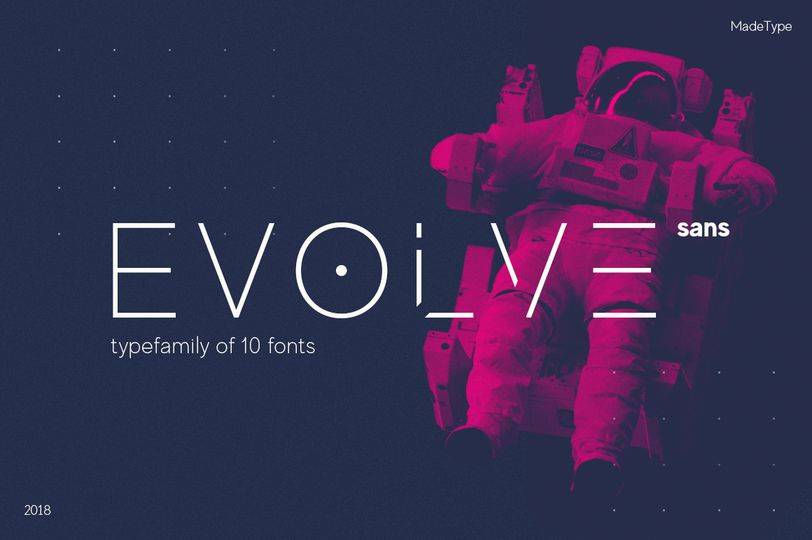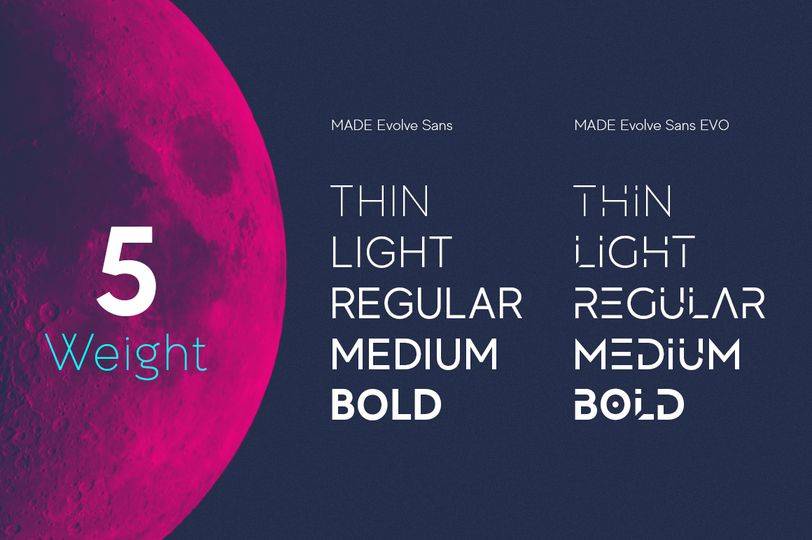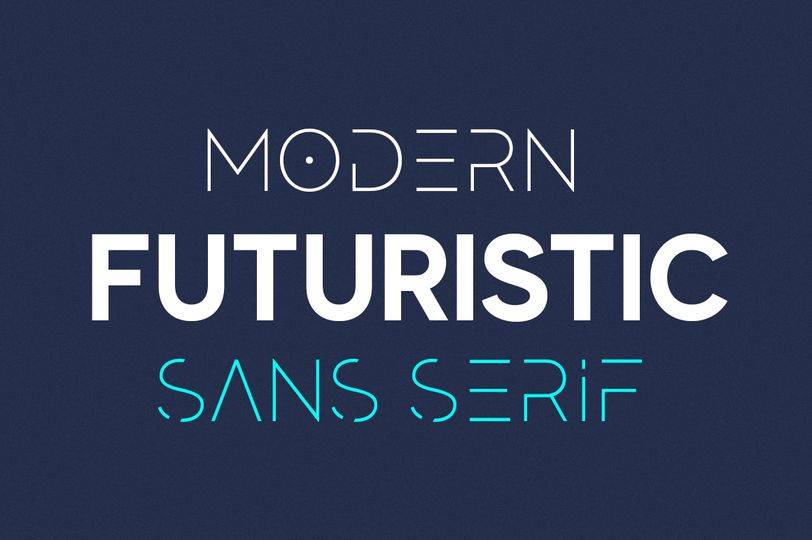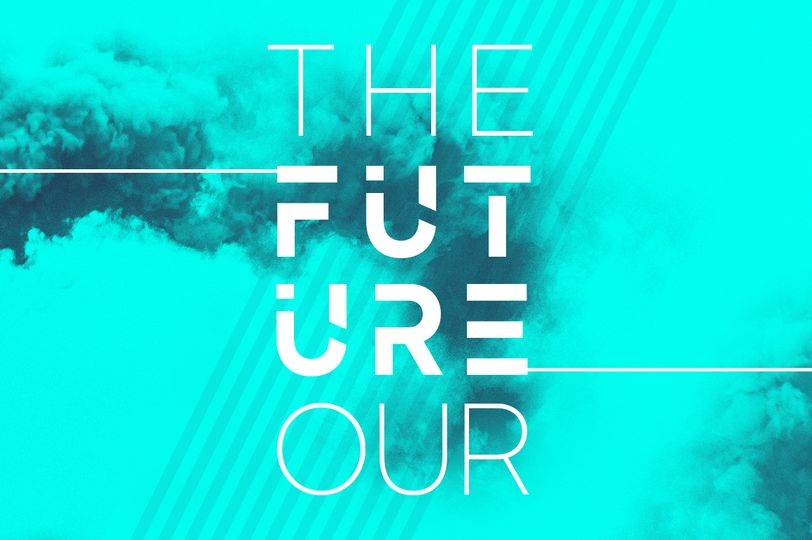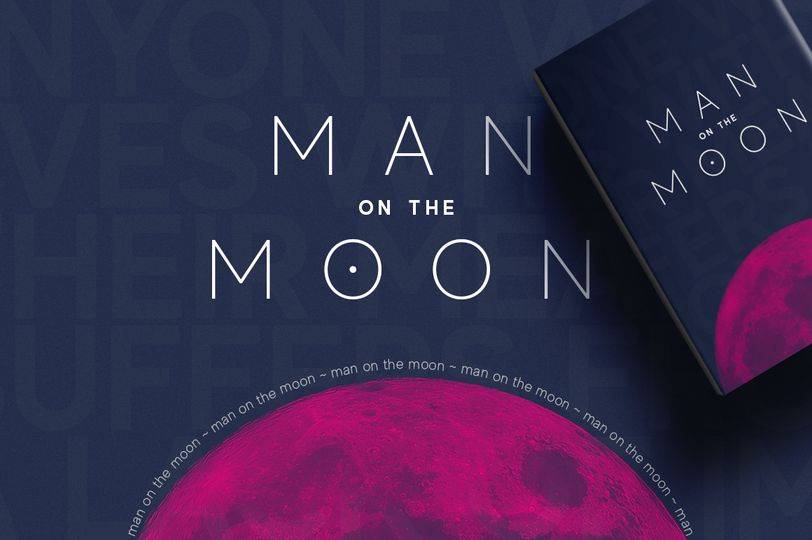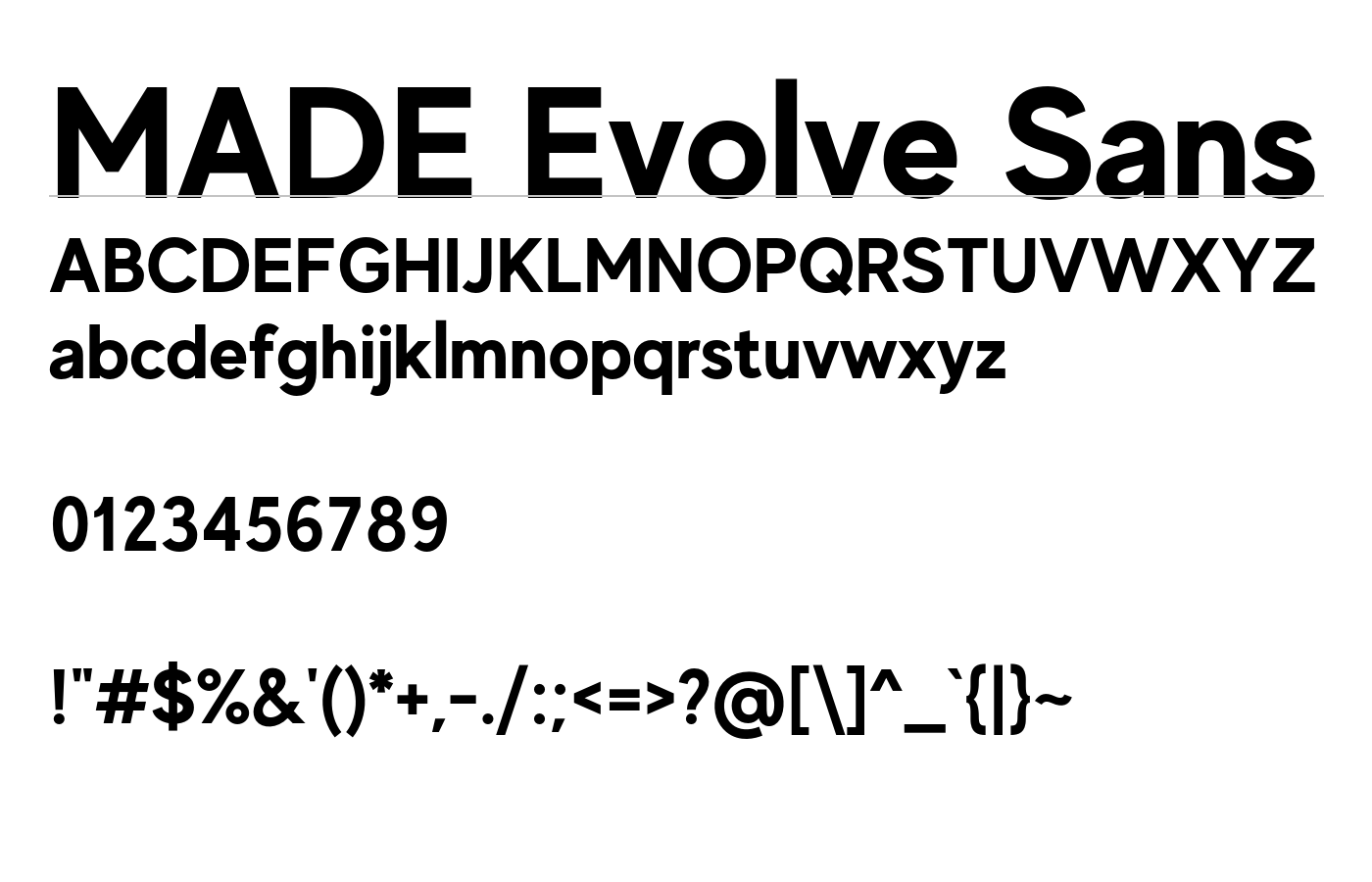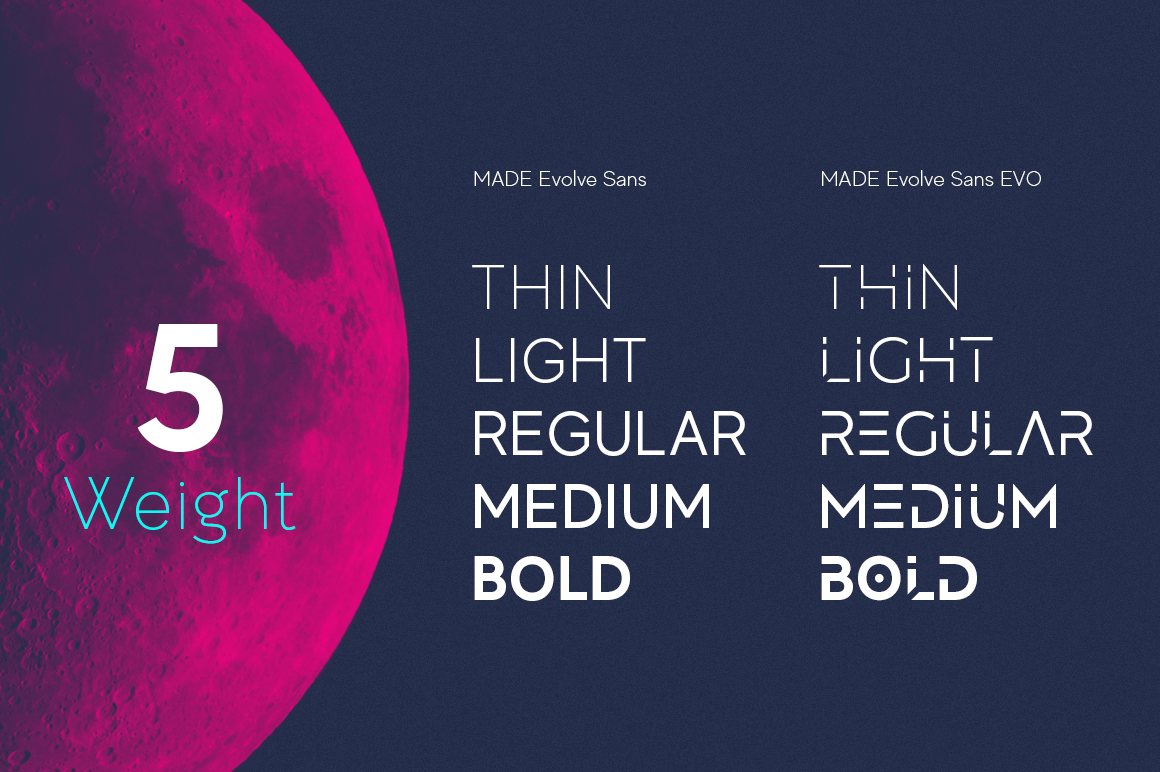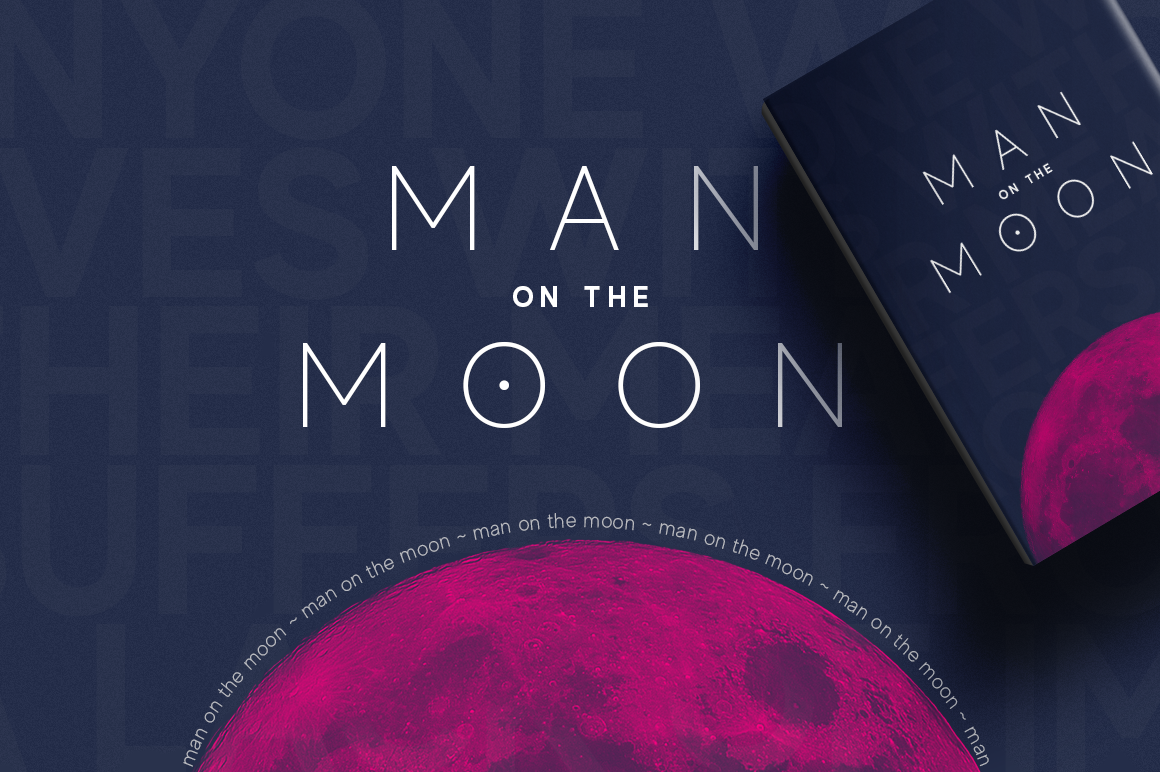
MADE Evolve Sans is a clean, modern sans serif font featuring a medium weight and balanced proportions with a straightforward, geometric style. Its open letterforms and moderate contrast make it highly legible, ideal for both headlines and body text in contemporary branding, editorial design, and digital interfaces. With a friendly yet professional tone, this font works well for businesses seeking a versatile and approachable look.
MADE Evolve Sans
About MADE Evolve Sans
| Font family | MADE Evolve Sans |
| Release date | 2018-01-29 |
| Designer | MadeType |